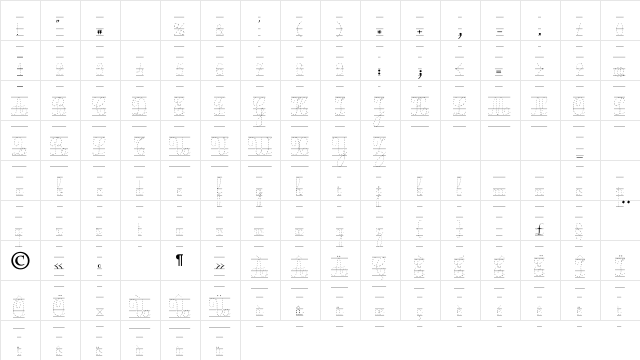
Ecolier_CP_pointill Regular Font Preview
Ecolier_CP_pointill Regular
Design Context for Ecolier_CP_pointill Typeface
Ecolier_CP_pointill offers clean, dependable letterforms without strong stylistic allegiance, making it a practical choice for designers who need flexibility.